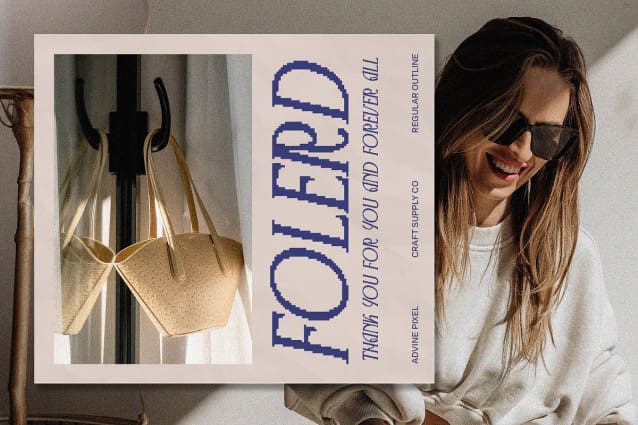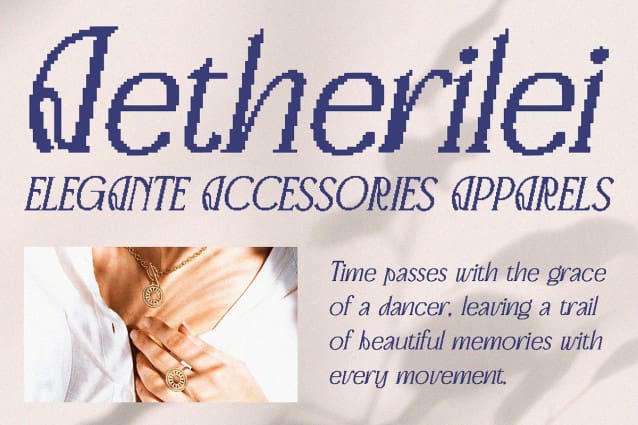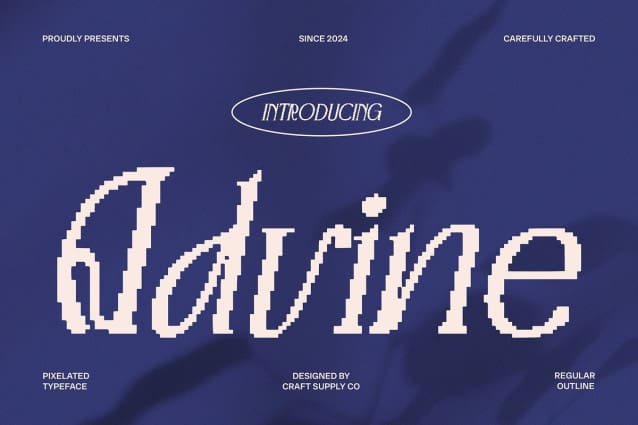
Advine Pixel Font
Advine Pixel Font is a serif font with Art Nouveau styling that showcases classic beauty and elegance combined with a retro feel. The pixel effect adds a unique modern touch, creating an intriguing blend of traditional style and technological elements.
With its Art Nouveau styling and pixel effect, Advine Pixel is perfect for designs seeking a distinctive and elegant appearance. This font ensures your projects stand out with a blend of elegance, retro charm, and innovative digital nuances, making it suitable for various applications that require a unique and memorable aesthetic.
Advine Pixel enhances designs that aim to merge classic beauty with modern digital elements. Its pixel effect adds a contemporary twist, ensuring your designs convey sophistication and innovation while maintaining a timeless elegance and retro appeal.
Versatile and visually appealing, Advine Pixel adapts seamlessly to various design applications. Whether used in digital or print media, this font provides a refined and modern appeal that enhances the overall impact of your creative projects.